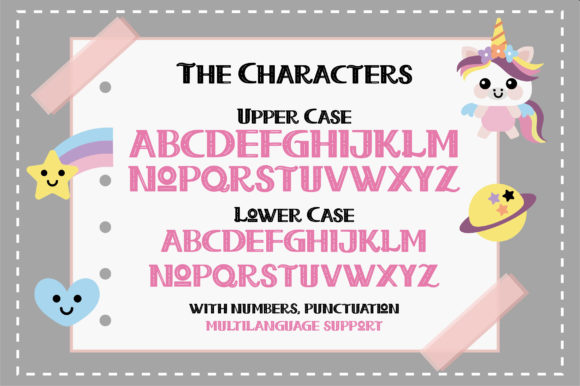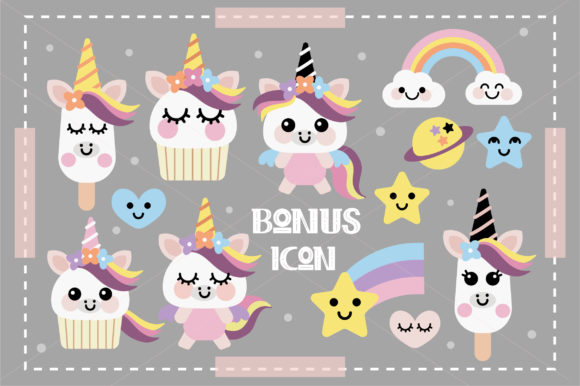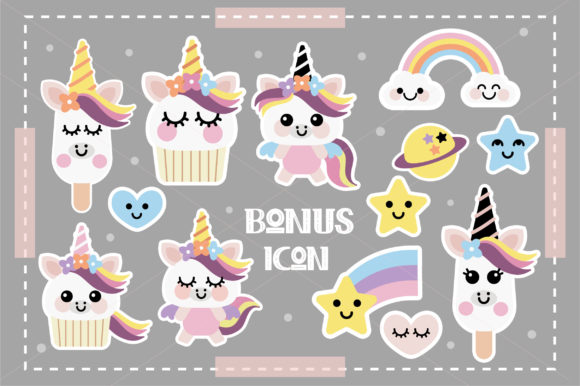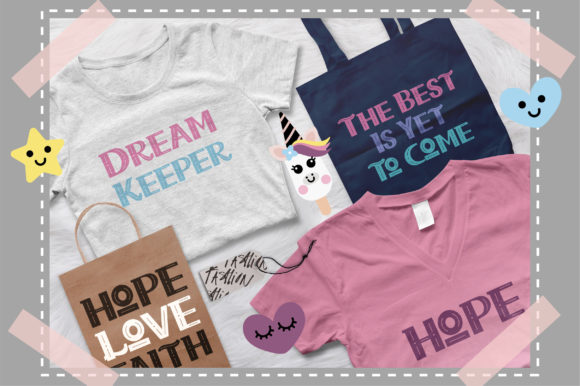
Introduction to Pink Unicorn Font
As a designer, have you ever found yourself pouring over a blank canvas, waiting for that perfect spark to ignite your next creative project? For many of us, it’s that elusive moment when inspiration strikes, and our imagination runs wild. I recall one such moment when I stumbled upon the enchanting Pink Unicorn Font, and I knew I had to share it with fellow creatives.
With its delicate, elegant lines and whimsical charm, the Pink Unicorn Font is a design resource that elevates any project to new heights. Its transparent background and high-quality design make it a versatile tool for graphic designers, illustrators, and artists alike. Whether you’re working on a personal project or collaborating with a team, this stunning display font is sure to bring a touch of magic to your work.
Key Features of Pink Unicorn Font
- Unique and playful design: The Pink Unicorn Font is a creative project that brings a touch of whimsy to any design, making it a perfect addition to your design resource collection.
- High-quality font: This font is designed with high-quality graphics, ensuring that your designs will look sharp and clear, even at high resolutions.
- Transparent background: The Pink Unicorn Font has a transparent background, allowing you to easily overlay it on any image or design without any unwanted background elements.
- Unique characteristics: The Pink Unicorn Font features a distinctive, hand-drawn design with a touch of magic, making it a one-of-a-kind design resource for any creative project.
Honest Review: Pink Unicorn Font
As a designer, I’m always on the lookout for high-quality design resources to elevate my creative projects. Recently, I stumbled upon the Pink Unicorn Font, and I was excited to give it a try.
What works well is the font’s playful and whimsical feel, perfect for designs that need a touch of magic ✨. The font is highly customizable, and I appreciate the transparent background option, making it easy to integrate with any design. Additionally, the free download option is a huge plus, allowing designers to experiment with the font without breaking the bank.
- High-quality design with a unique touch
- Customizable and versatile
However, I do have some reservations. The font may not be suitable for professional or formal designs, as it can come across as too playful ⚠️. Additionally, the font’s availability on some platforms may be limited, so be sure to check compatibility before using it.
Overall, I think the Pink Unicorn Font is a great addition to any designer’s toolkit. While it may have some limitations, its unique charm and high-quality design make it a worthwhile resource for creative projects.
Tips for Getting the Most Out of the Pink Unicorn Font
To get the most out of the Pink Unicorn Font, use it in combination with other design elements, such as bold colors and graphics. This will help to create a visually appealing and creative project.
The Pink Unicorn Font is commonly used in a variety of creative projects, including social media graphics, presentations, and posters. It is also used in branding and marketing materials, such as business cards and flyers.